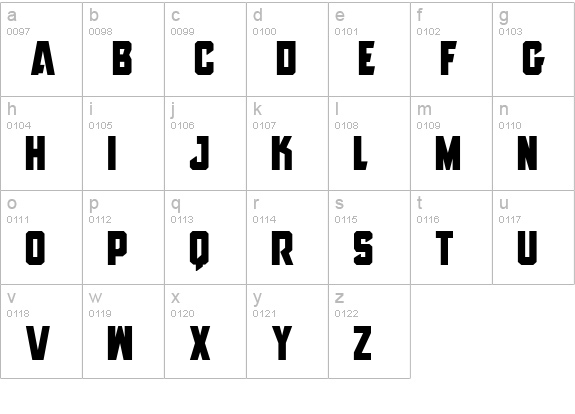
The Anitlles font is a modern and elegant typeface that exudes sophistication and style. With its clean lines and sleek design, it is perfect for a wide range of design projects, from branding to editorial layouts. The Anitlles font is versatile and can be used for both headings and body text, making it a valuable addition to any designer's toolkit. What's even better is that the Anitlles font is completely free to download at FontsMarket.com. So, whether you're working on a personal project or a client's design, you can easily access this beautiful font without any cost. Don't miss out on this opportunity to enhance your designs with the Anitlles font – download it today and see the difference it can make!